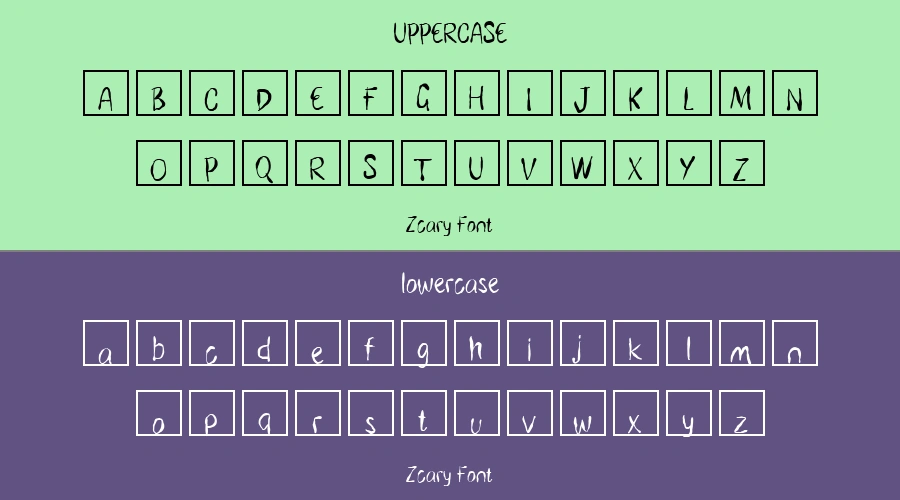
About Zcary Font
Zcary Font embodies typographic excellence through its masterful combination of teardrop terminals and typographic color. Created for packaging hero, this typeface delivers exceptional adaptability and creative excellence across all applications. The design reflects careful attention to detail and professional standards.
Advanced capabilities include distinctive ink flow effects and versatile dingbat elements, giving designers creative control. When used in featured quotes, Zcary Font exhibits remarkable emotional response. The harmonious balance between counter size and artistic merit sets this typeface apart.